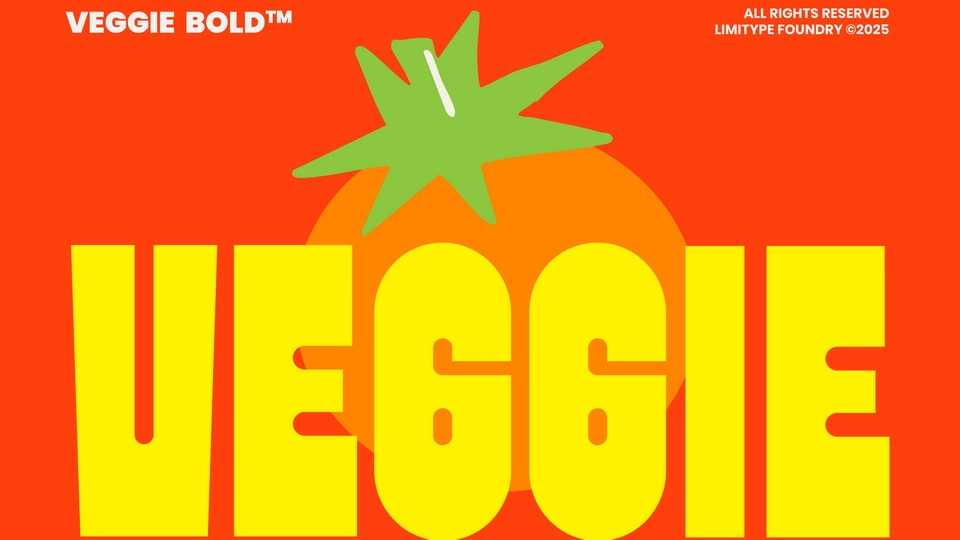
Download Veggie font, a bold display typeface with semi condensed proportions and rounded shapes, delivering a modern, strong, and highly recognizable appearance.